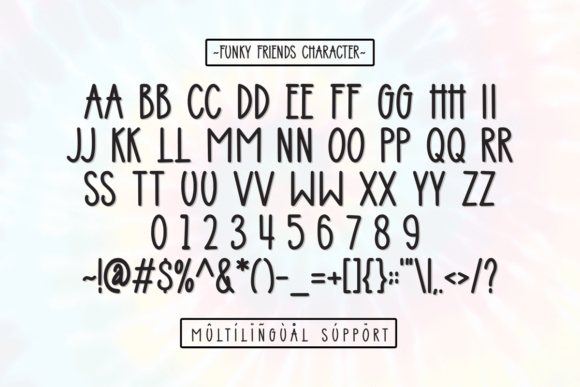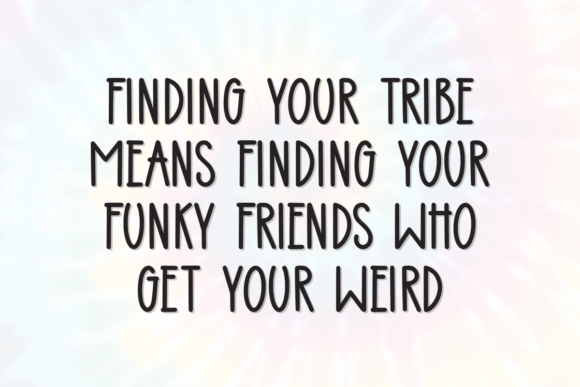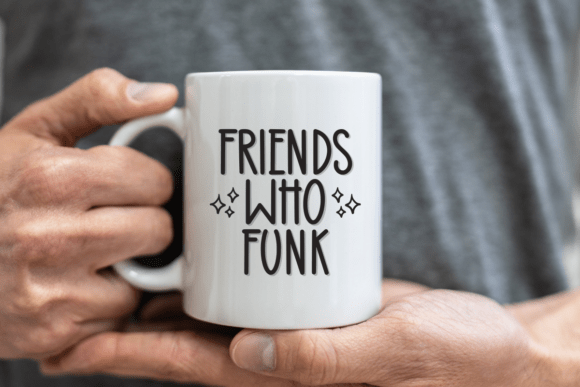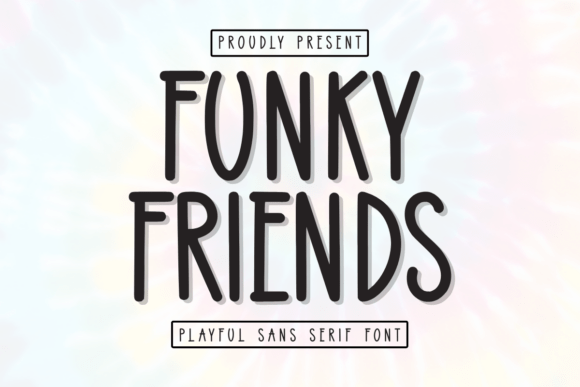
Introduction to Funky Friends Font
Funky Friends is a cute and minimalist sans serif font.
This font is perfect for greeting cards, wedding invitations, gift labels, mugs, t-shirts, quotes, labels, etc Use it to create spectacular and interesting designs.
Key Features of Funky Friends Font